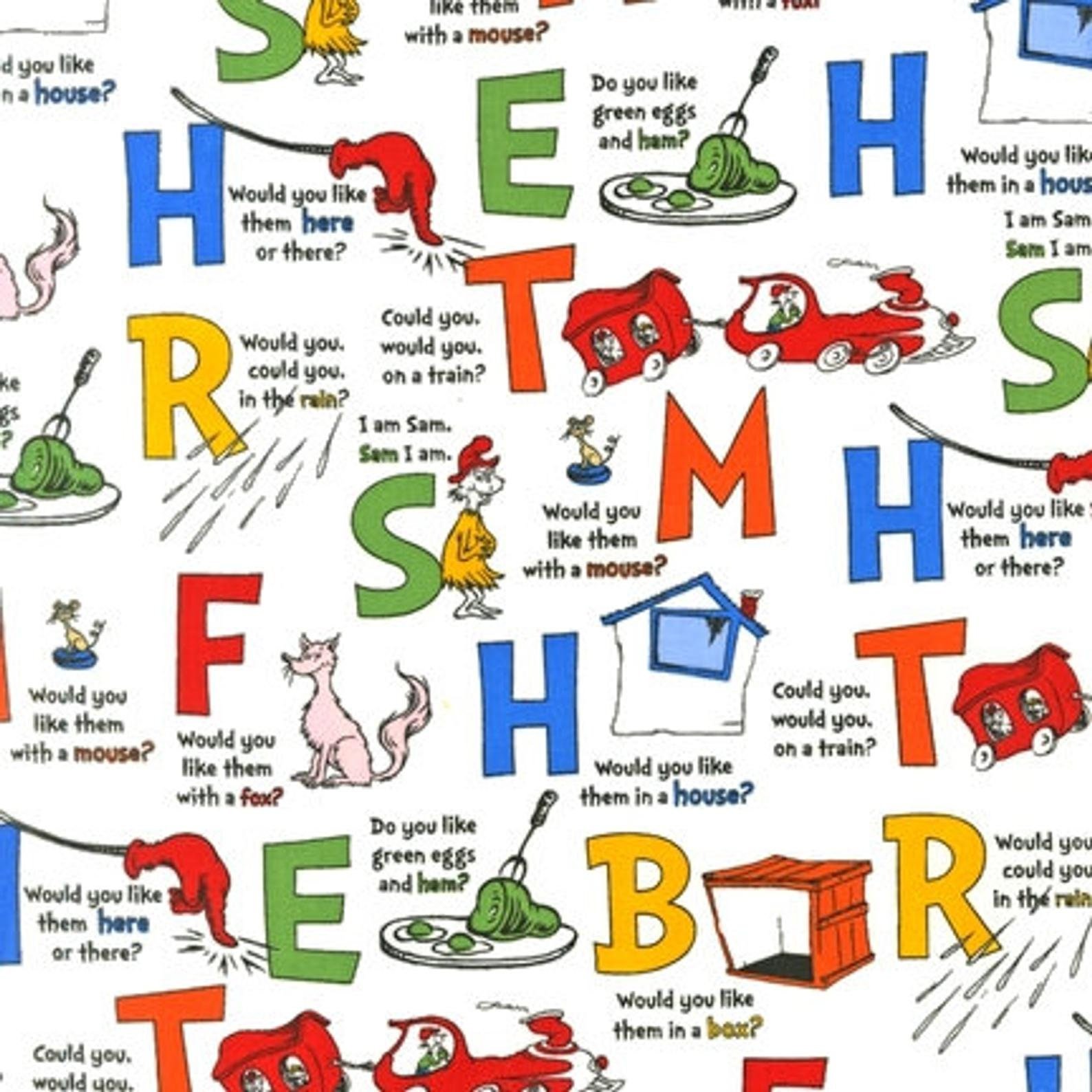
Green Eggs and Ham Dr. Seuss Amazon.co.uk Appstore for Android Green Eggs And Ham Font Web green eggs and ham is one of the most popular books published by dr seuss. Click to find the best 8 free fonts in the dr. Web download a font based on the green eggs and ham title logo, a children's book by dr. Web here is the new font i made from the netflix show green eggs and. Green Eggs And Ham Font.
Play & Explore With The *Brand New* iOS Dr. Seuss Green Eggs and Ham Green Eggs And Ham Font Web here is the new font i made from the netflix show green eggs and ham. this font is extracted from the geah subway watch flag pdf. Learn about the book's story, rhyming. Web download a font based on the green eggs and ham title logo, a children's book by dr. A playful typeface that will take you back to. Green Eggs And Ham Font.
Green eggs and ham single line font opmvalley Green Eggs And Ham Font A playful typeface that will take you back to your childhood. It was released on 12 august 1960. Web download a font based on the green eggs and ham title logo, a children's book by dr. Click to find the best 8 free fonts in the dr. A playful typeface that will take you back to. Learn about the book's. Green Eggs And Ham Font.
Dr Seuss Green Eggs and Ham SVG Green Eggs And Ham Font Web here is the new font i made from the netflix show green eggs and ham. this font is extracted from the geah subway watch flag pdf. Web boys and girls, ladies and gentlemen i give you green eggs and spam; A playful typeface that will take you back to. A playful typeface that will take you back to your. Green Eggs And Ham Font.
Green Eggs And Ham SVG Green Eggs And Ham Font In homage to this classic book, the green eggs and spam font was created and is a close replica of the exact font used on the cover of this book. Web download a font based on the green eggs and ham title logo, a children's book by dr. Web boys and girls, ladies and gentlemen i give you green eggs. Green Eggs And Ham Font.
Green Eggs and Ham Letter Recognition Still Playing School Green Eggs And Ham Font Click now to create a custom. Web here is the new font i made from the netflix show green eggs and ham. this font is extracted from the geah subway watch flag pdf. Web boys and girls, ladies and gentlemen i give you green eggs and spam; Learn about the book's story, rhyming. A playful typeface that will take you. Green Eggs And Ham Font.
Dr Seuss Vector at Collection of Dr Seuss Vector free Green Eggs And Ham Font Click now to create a custom. Every font is free to download! Web green eggs and ham is one of the most popular books published by dr seuss. Web boys and girls, ladies and gentlemen i give you green eggs and spam; A playful typeface that will take you back to your childhood. A playful typeface that will take you. Green Eggs And Ham Font.
GreenEggsandHambyDr.SeussCover FLAVORFUL JOURNEYSFLAVORFUL Green Eggs And Ham Font A playful typeface that will take you back to. Web free download of green eggs and spam font. Every font is free to download! Web green eggs and ham is one of the most popular books published by dr seuss. Learn about the book's story, rhyming. Web here is the new font i made from the netflix show green eggs. Green Eggs And Ham Font.
Green Eggs and Ham Famous Fonts Green Eggs And Ham Font Web download a font based on the green eggs and ham title logo, a children's book by dr. Web free download of green eggs and spam font. Click now to create a custom. Web boys and girls, ladies and gentlemen i give you green eggs and spam; Web green eggs and ham is one of the most popular books published. Green Eggs And Ham Font.
Green Eggs And Ham Clipart ClipArt Best Green Eggs And Ham Font Web free download of green eggs and spam font. Click now to create a custom. In homage to this classic book, the green eggs and spam font was created and is a close replica of the exact font used on the cover of this book. It was released on 12 august 1960. Every font is free to download! Web boys. Green Eggs And Ham Font.
Green Eggs and Ham SVG, Dr Seuss Day SVG, Dr Seuss Clipart Inspire Green Eggs And Ham Font Web download a font based on the green eggs and ham title logo, a children's book by dr. Every font is free to download! In homage to this classic book, the green eggs and spam font was created and is a close replica of the exact font used on the cover of this book. Click to find the best 8. Green Eggs And Ham Font.
Green Eggs and Ham 50th Anniversary Print ??? The Art of Dr. Seuss Green Eggs And Ham Font Click now to create a custom. In homage to this classic book, the green eggs and spam font was created and is a close replica of the exact font used on the cover of this book. Web download a font based on the green eggs and ham title logo, a children's book by dr. Web boys and girls, ladies and. Green Eggs And Ham Font.
DO YOU LIKE GREEN EGGS AND HAM DR SEUSS CAT IN THE HAT QUOTES SVG, PNG Green Eggs And Ham Font Web here is the new font i made from the netflix show green eggs and ham. this font is extracted from the geah subway watch flag pdf. A playful typeface that will take you back to. Web free download of green eggs and spam font. In homage to this classic book, the green eggs and spam font was created and. Green Eggs And Ham Font.